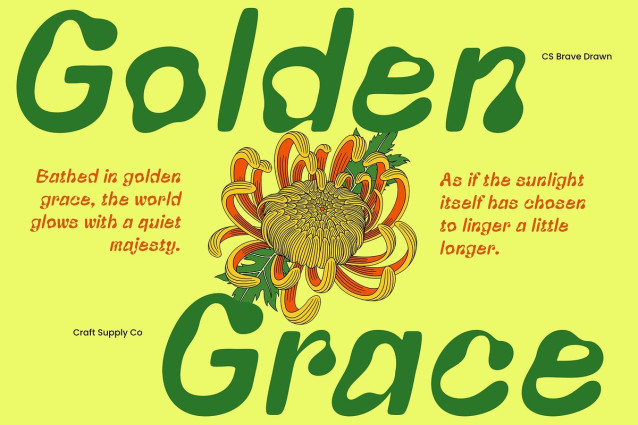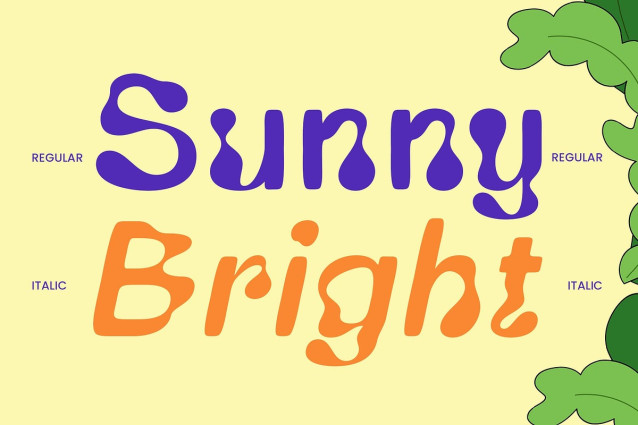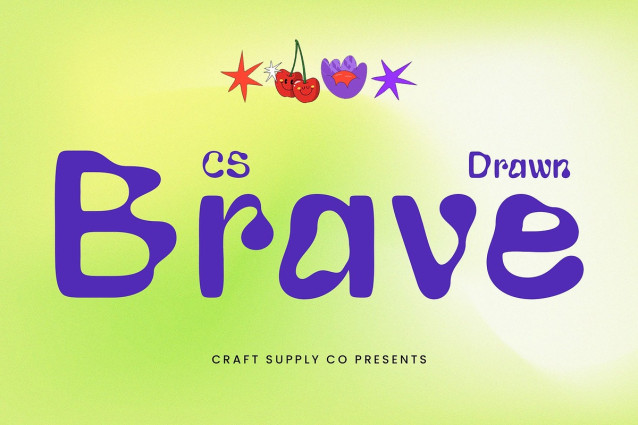
CS Brave Drawn Font
CS Brave Drawn Font – This is a modern display font with a bold, trippy, and psychedelic style that exudes a fun and cheerful vibe. Its energetic letterforms are designed to grab attention and evoke a sense of creativity and freedom, making it perfect for bold designs that stand out from the crowd.
Unique Drawn Effect for Extra Character What sets this modern display font apart is its distinctive hand-drawn texture, adding a playful, artistic touch to every character. This layered effect enhances the font’s trippy feel, creating a dynamic and visually engaging experience. Ideal for projects that want to push boundaries and make a statement.
Perfect for Music and Artistic Projects this trippy font is an excellent choice for music posters, creative posters, and artistic branding. Whether you’re designing for a funky music festival, an experimental art project, or any design that needs a bold and expressive touch, this font provides the perfect vibe to captivate your audience.
Expressive, Bold, and Playful With its vibrant, energetic style and unique hand-drawn effect, this trippy font brings a sense of excitement and creativity to any design. Perfect for projects that demand a funky, artistic, and memorable visual identity.